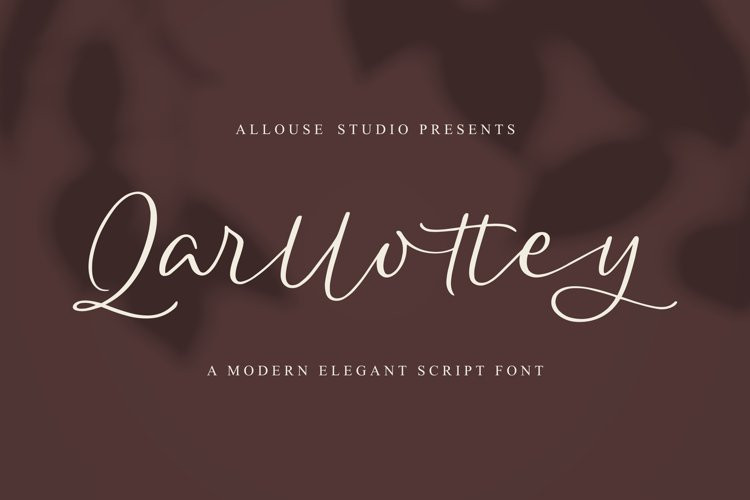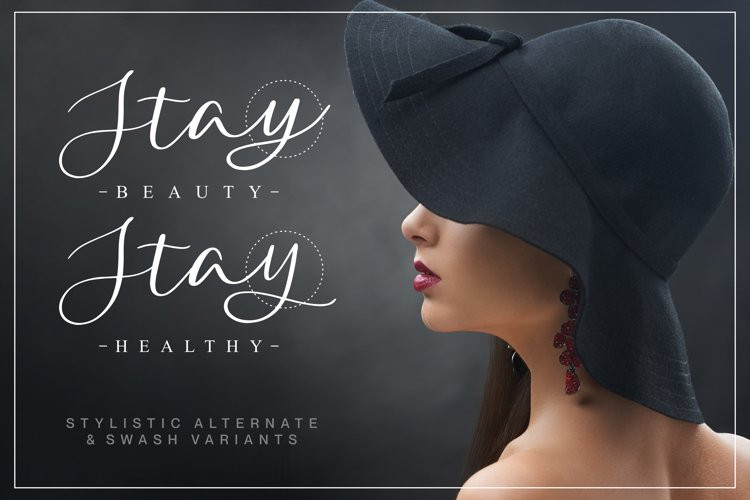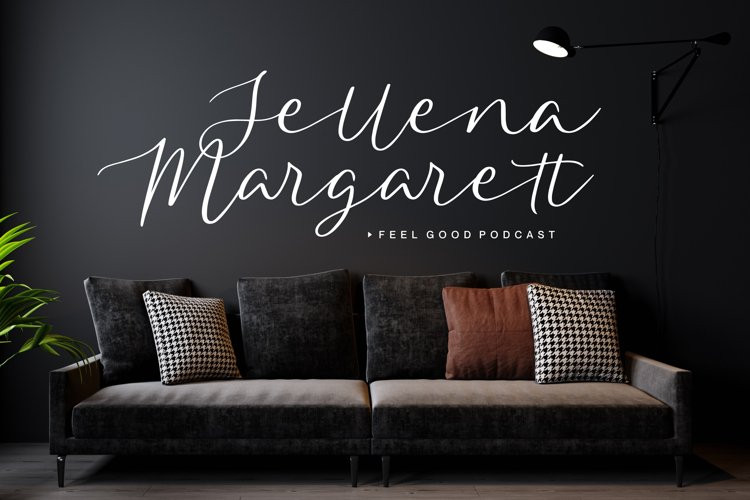
Qarlottey Font
Qarlottey FontQarllottey is perfect for product packaging, branding project, megazine, social media, wedding, or just used to express words above the background.